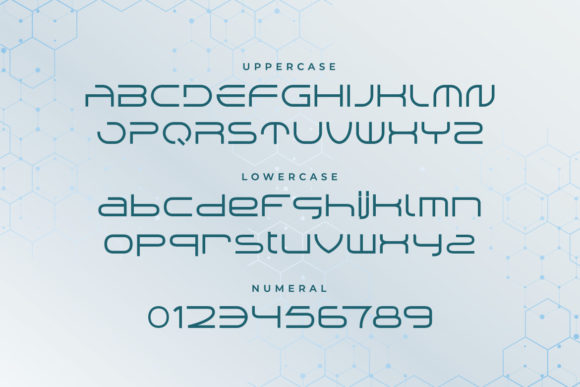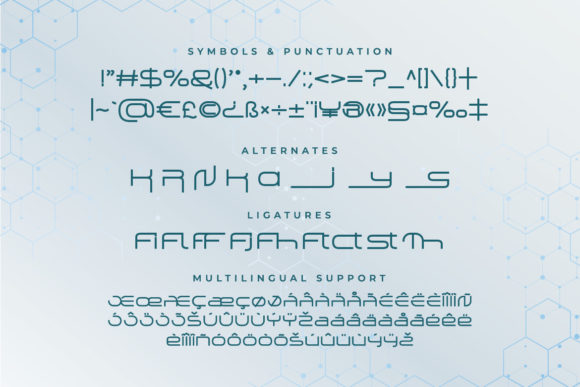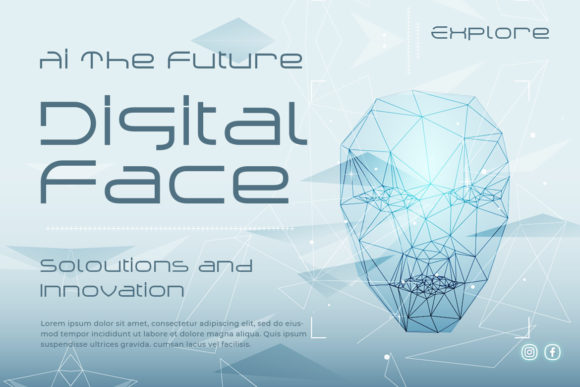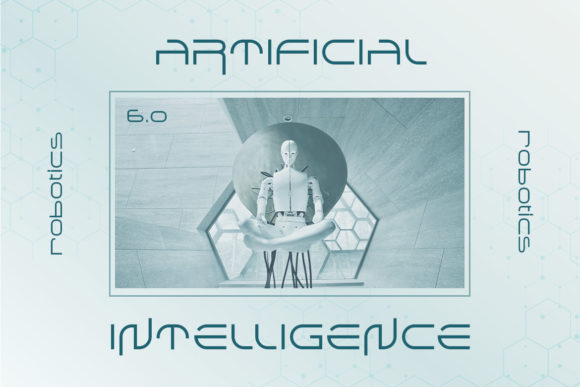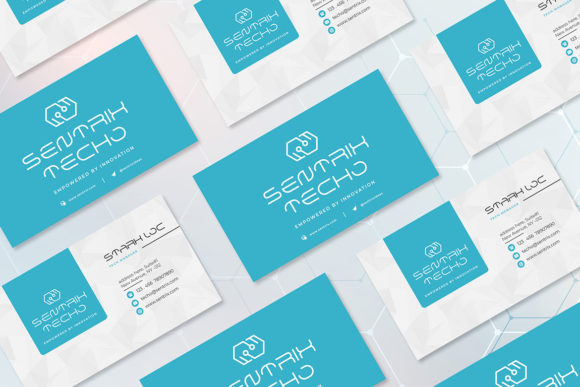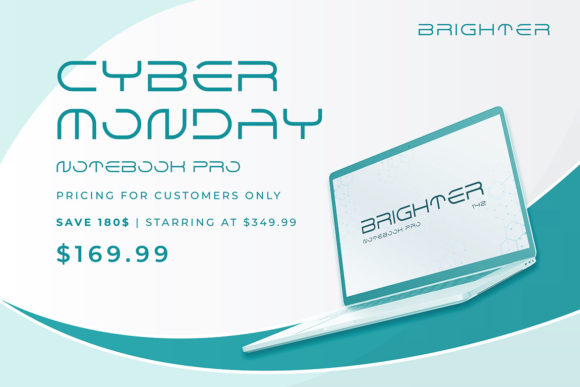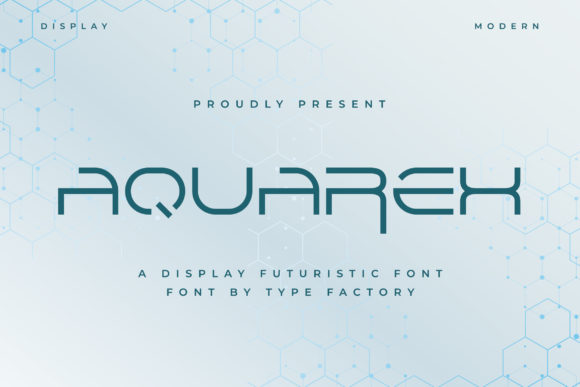
Aquarex Font: Elevate Your Designs with a Futuristic Twist
In the realm of typography, fonts play a pivotal role in conveying messages, evoking emotions, and setting the tone for creative projects. Among the myriad of fonts available, Aquarex stands out as a beacon of innovation and style. This article delves into the essence of Aquarex, exploring its unique characteristics, and how it can transform your designs into futuristic masterpieces.
Introduction to Aquarex
Aquarex is a cool and futuristic display font that has been making waves in the design community. Its unique appeal lies in its celebration of abstract shapes in all their eclectic beauty. Unlike traditional fonts that adhere to conventional typographic rules, Aquarex breaks the mold with its avant-garde design. This font is not just a typographic choice; it’s a statement piece that can elevate your creative projects to new heights.
Key Features of Aquarex
- Unique Abstract Shapes: Aquarex boasts a collection of abstract shapes that give it a distinctive edge. These shapes are carefully crafted to provide a futuristic feel, making it perfect for projects that demand a modern aesthetic.
- Eclectic Beauty: The font’s design celebrates the beauty of eclecticism, allowing designers to experiment with various styles and themes. Whether you’re working on a branding project, a website, or a print design, Aquarex offers the versatility to adapt and shine.
- Display Font: As a display font, Aquarex is optimized for headlines, titles, and short texts. Its bold and futuristic appearance ensures that your message grabs attention and leaves a lasting impression.
Why Choose Aquarex?
Choosing the right font for your project can be a daunting task, given the plethora of options available. However, Aquarex offers several compelling reasons to make it your top pick:
- Innovative Design: Aquarex’s futuristic design sets it apart from more traditional fonts. It’s perfect for designers looking to push the boundaries of creativity and innovation.
- Versatility: Despite its unique design, Aquarex is surprisingly versatile. It can be used across various mediums, from digital platforms to print materials, making it a valuable addition to any designer’s toolkit.
- Easy to Read: While Aquarex is bold and futuristic, it doesn’t compromise on readability. Its clear and distinct letterforms ensure that your message is conveyed effectively, without sacrificing style for substance.
How to Use Aquarex in Your Designs
- Pair it with Neutrals: Aquarex’s bold design makes it a focal point in any composition. Pair it with neutral fonts to create a balanced and harmonious design.
- Experiment with Colors: The futuristic vibe of Aquarex lends itself well to bold and vibrant color schemes. Don’t be afraid to experiment with colors that complement its unique design.
- Use it Sparingly: As a display font, Aquarex is best used sparingly. Use it for headlines and titles to create impact, and opt for simpler fonts for body text.
Aquarex is more than just a font; it’s a design statement. Its futuristic and eclectic design makes it a valuable asset for designers looking to create bold and innovative projects. Whether you’re working on a branding campaign, a website, or a print project, Aquarex offers the perfect blend of style, versatility, and impact. Add it confidently to your favorite creations and let yourself be amazed by the outcome generated.
Embrace the future of typography with Aquarex, and discover a world of limitless creative possibilities.